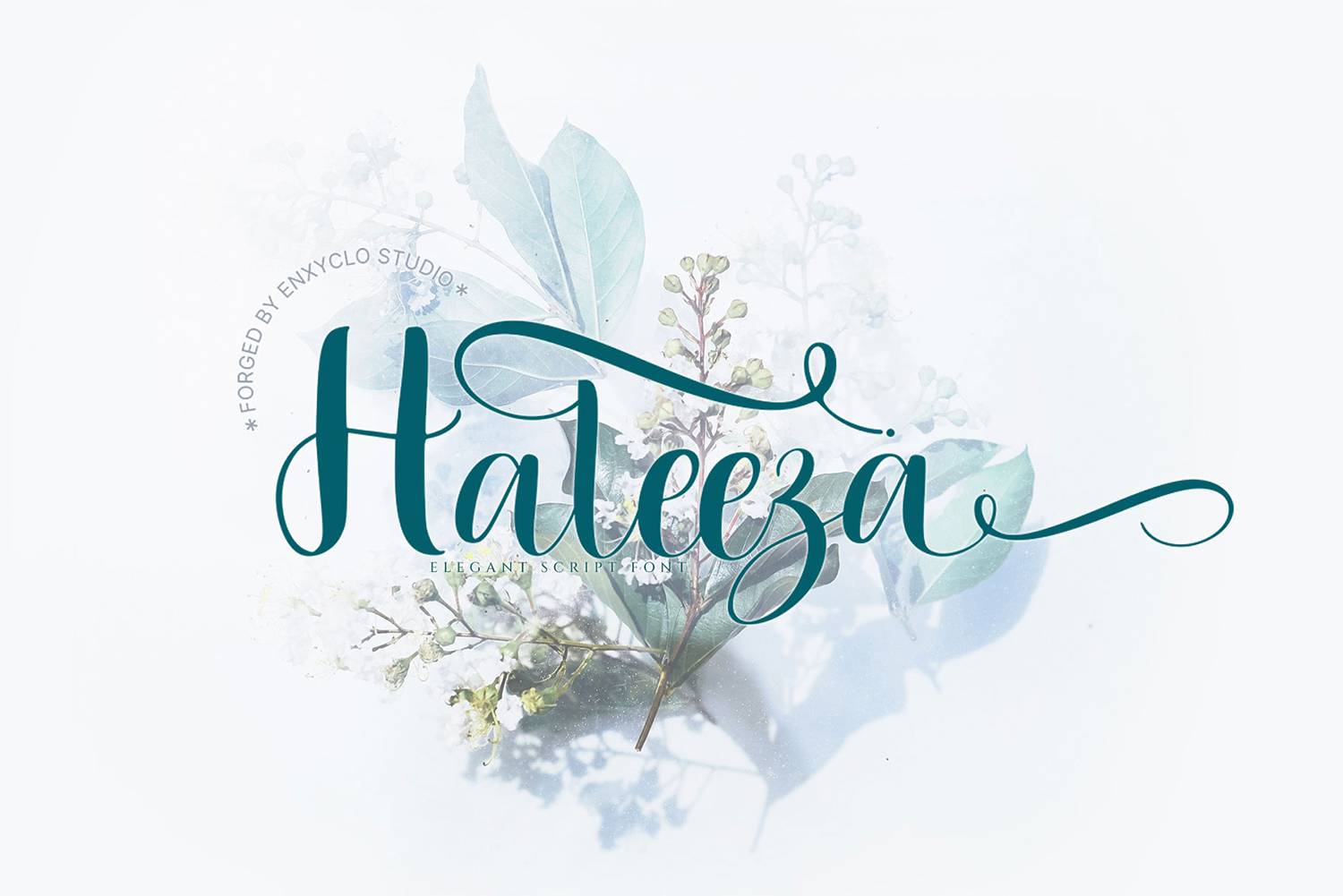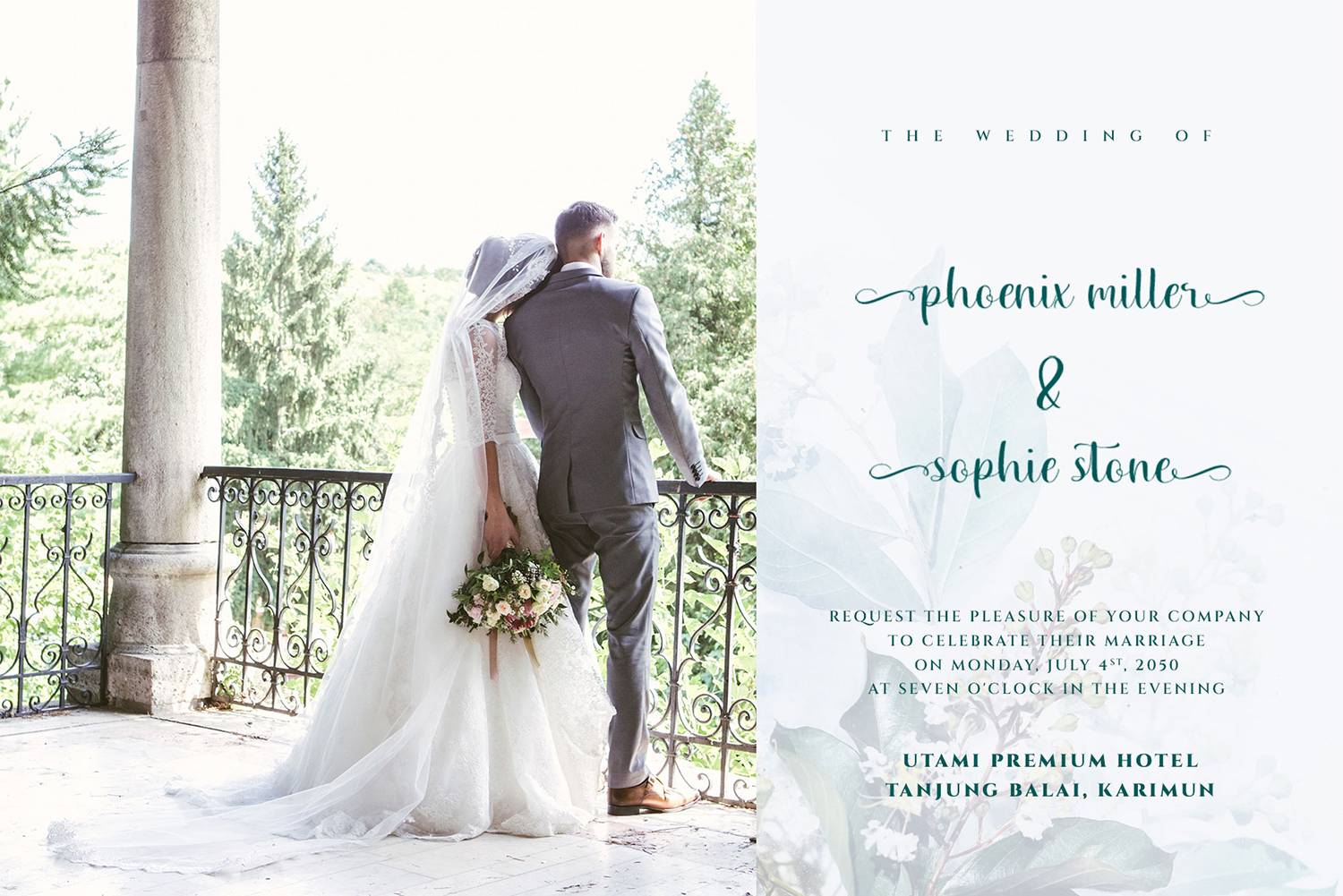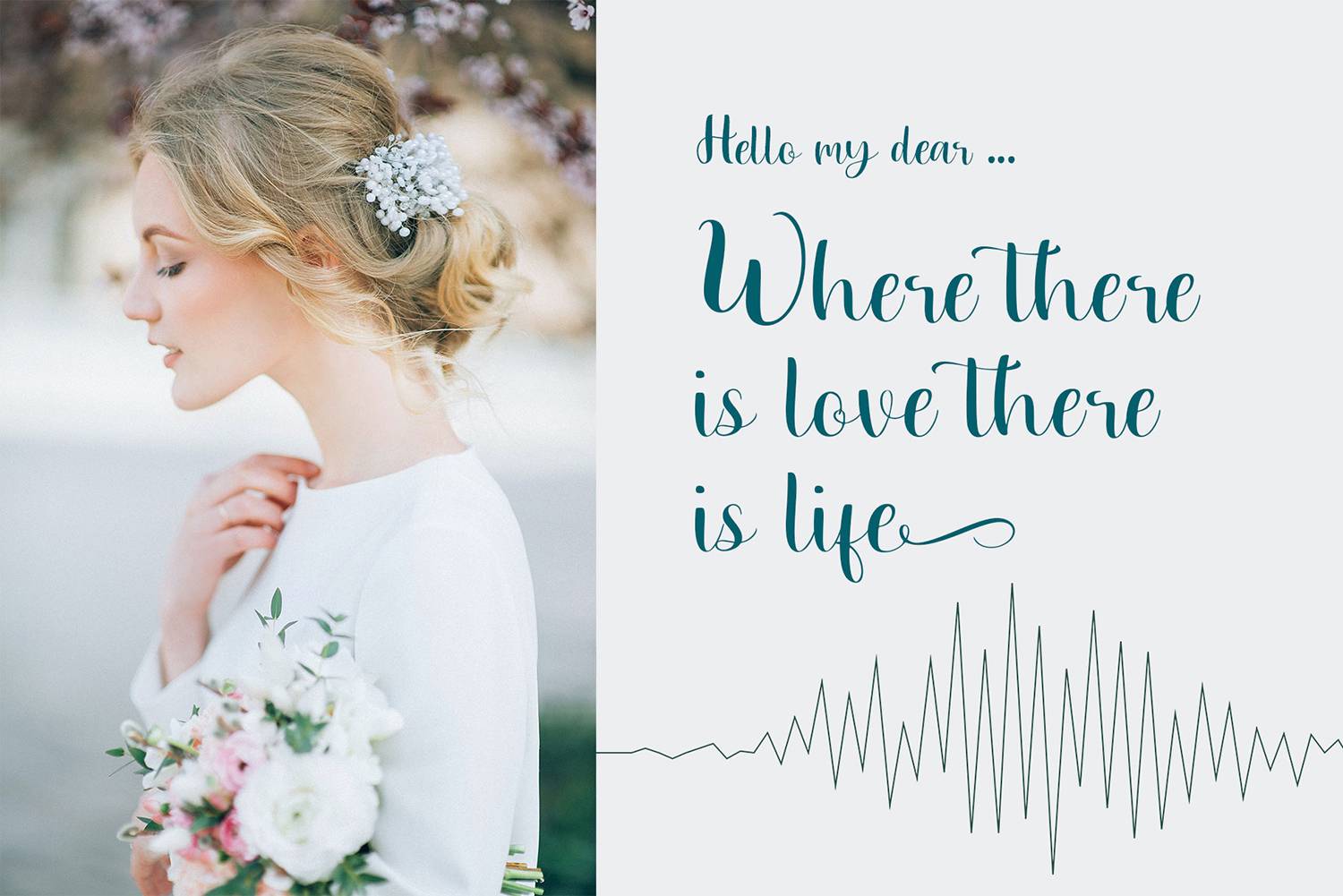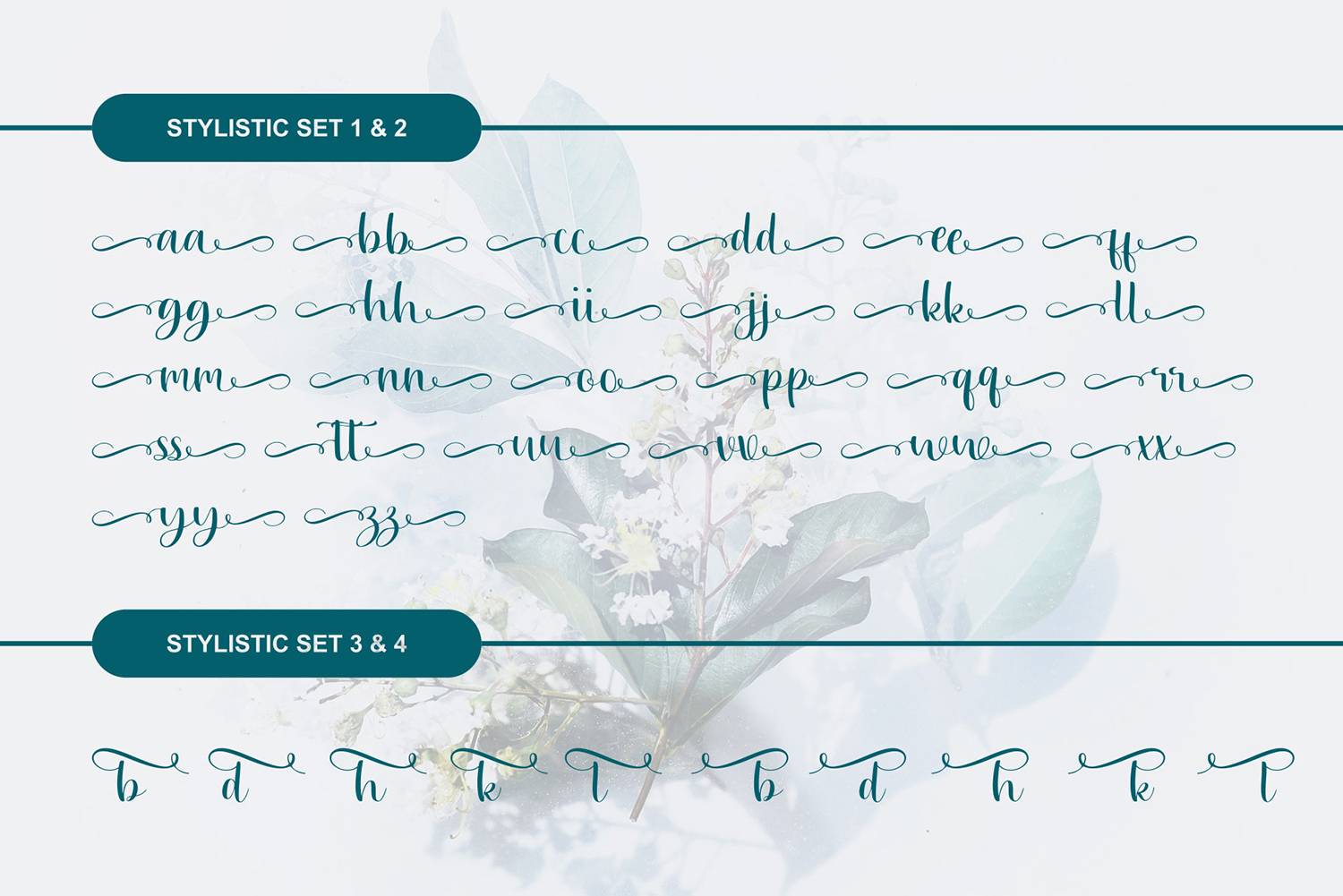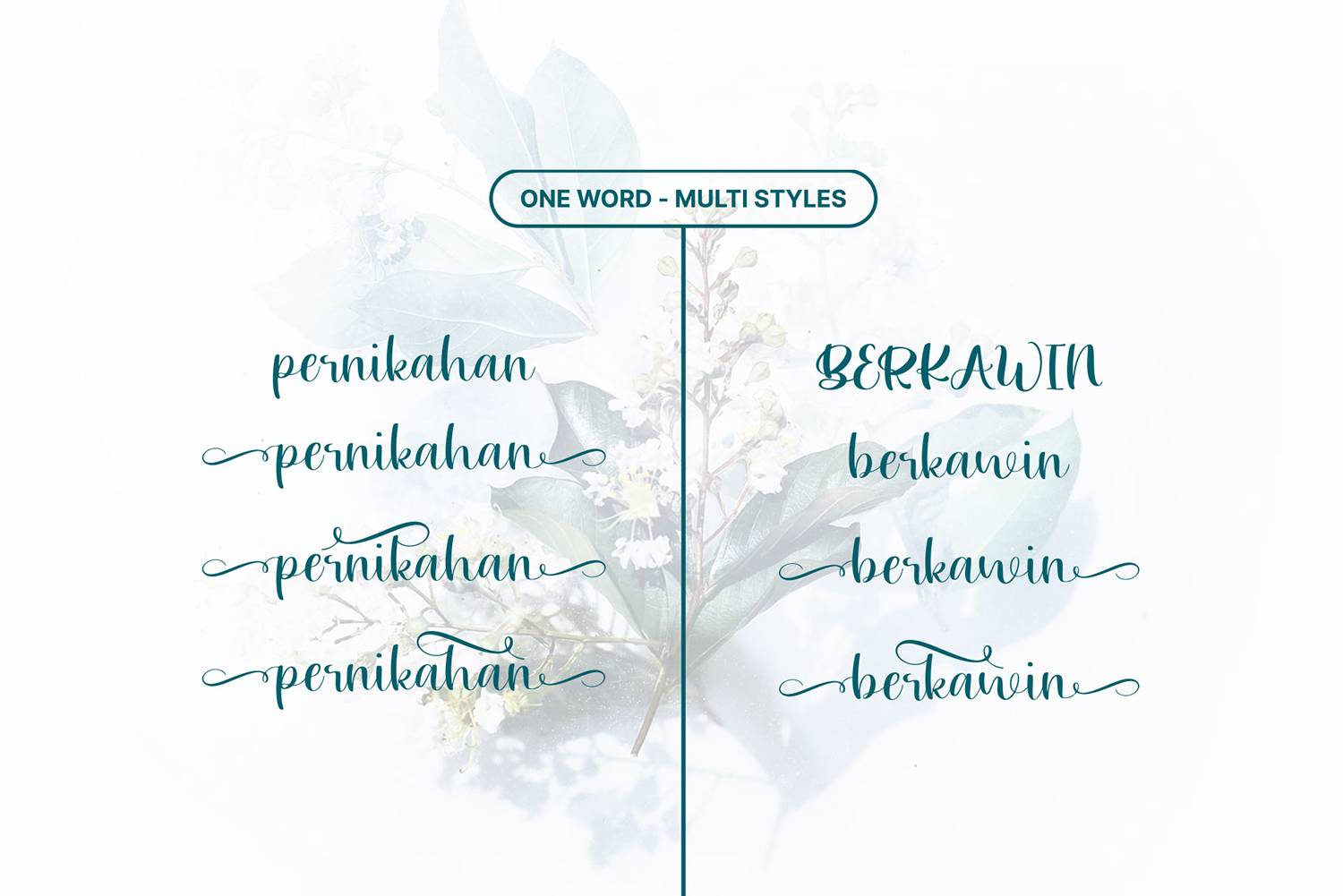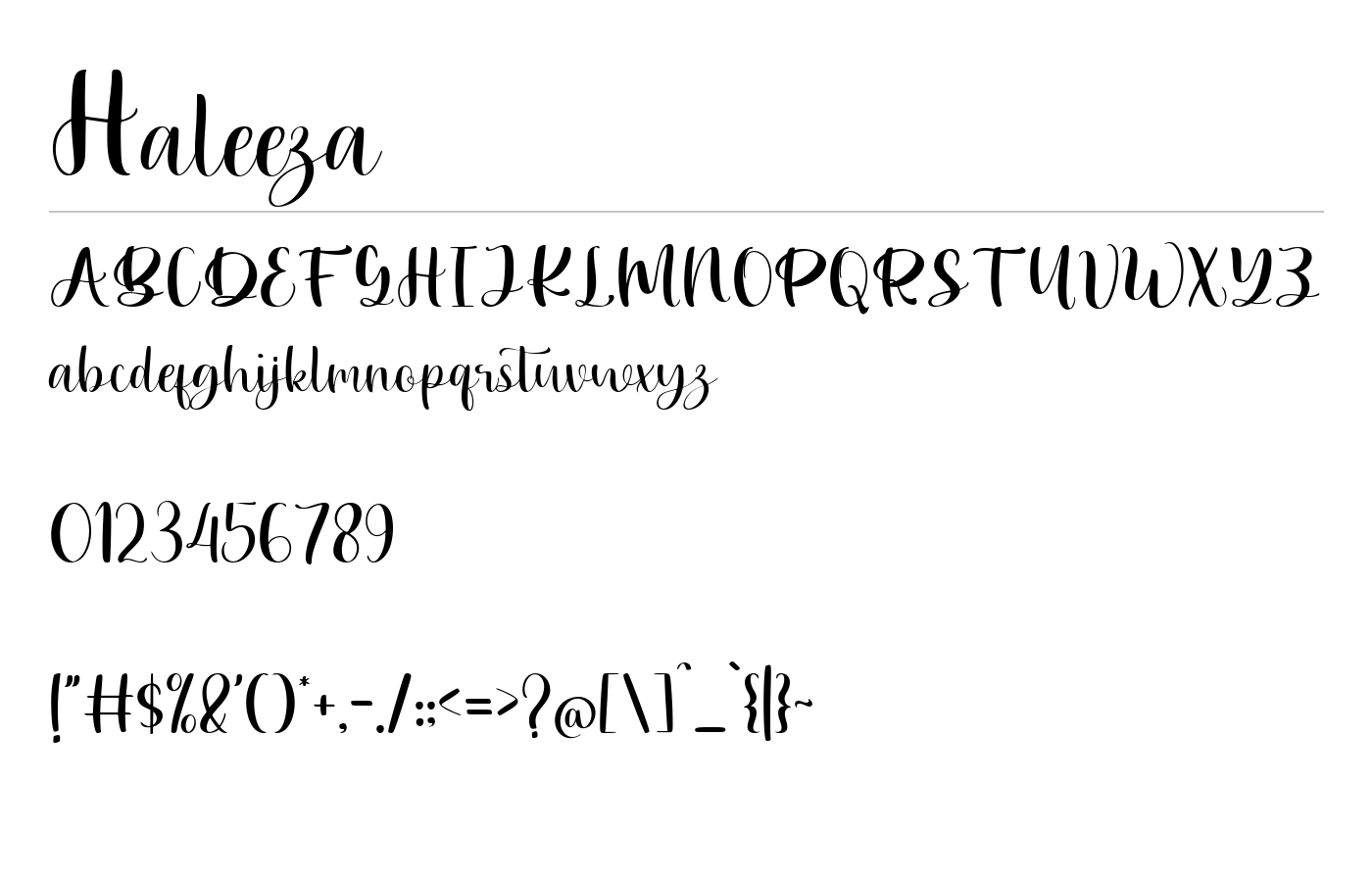
Haleeza is an elegant script font featuring smooth, flowing letterforms with a moderate contrast between thick and thin strokes, giving it a graceful and stylish appearance. Its tall x-height and distinctive curls in both uppercase and lowercase letters lend a playful yet sophisticated personality, making it ideal for branding, invitations, and decorative headlines where a touch of charm and femininity is desired. This font works beautifully in designs that seek to convey warmth, creativity, and elegance.
Haleeza Font
About Haleeza Font
| Font family | Haleeza Font |
| Designer | Enxyclo Studio |